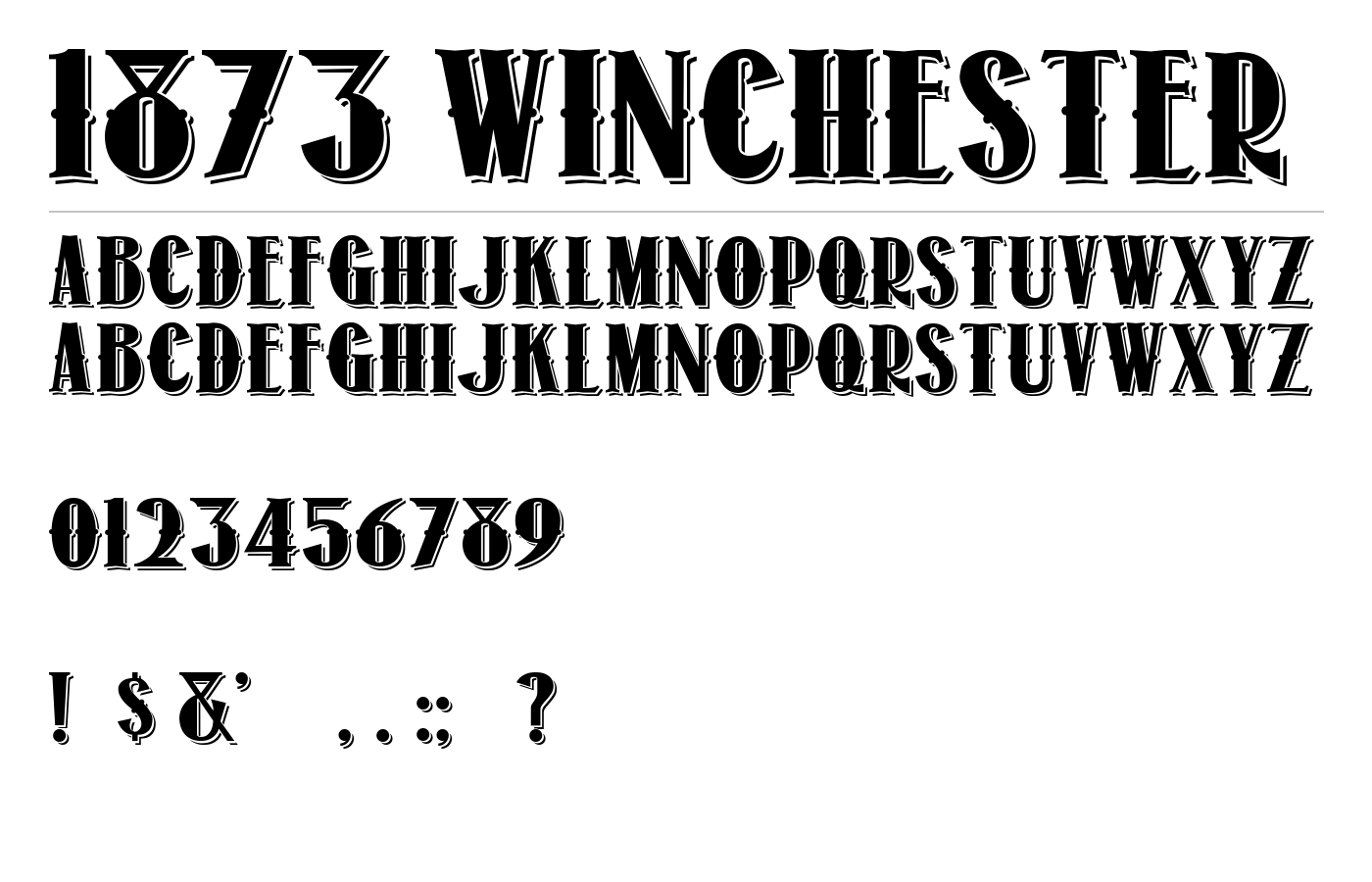
1873 Winchester is a bold, condensed serif font with a strong vintage Western feel, characterized by high contrast between thick and thin strokes and distinct bracketed serifs. Its tall, narrow letterforms and subtle shadowing evoke a rugged, classic Americana style, making it ideal for designs seeking a nostalgic yet commanding presence. This font works wonderfully for posters, branding, and packaging that aim to capture an old-fashioned, adventurous spirit.
1873 Winchester Font
About 1873 Winchester Font
| Font family | 1873 Winchester Font |
| Designer | Tom Kolter |